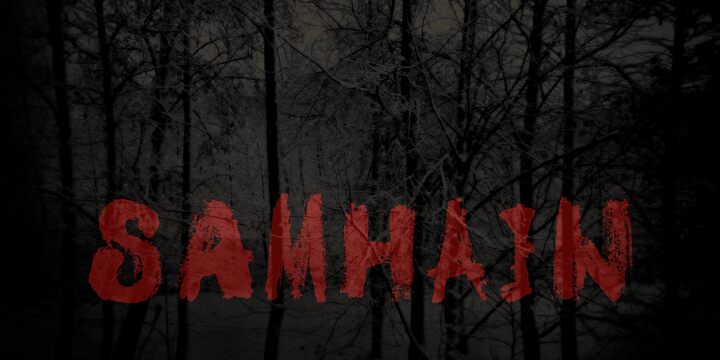
DK Samhain by David Kerkhoff is a free scary display font with battered, uneven capitals and a raw painted silhouette. The edges splinter and smear.
Horror and Halloween themes suit its scraped texture, especially on haunted-house posters and event graphics. It can also give metal merchandise and game artwork the look of a roughly inked warning. For magazine covers, its damaged forms can turn a feature title into part of the unsettling artwork.